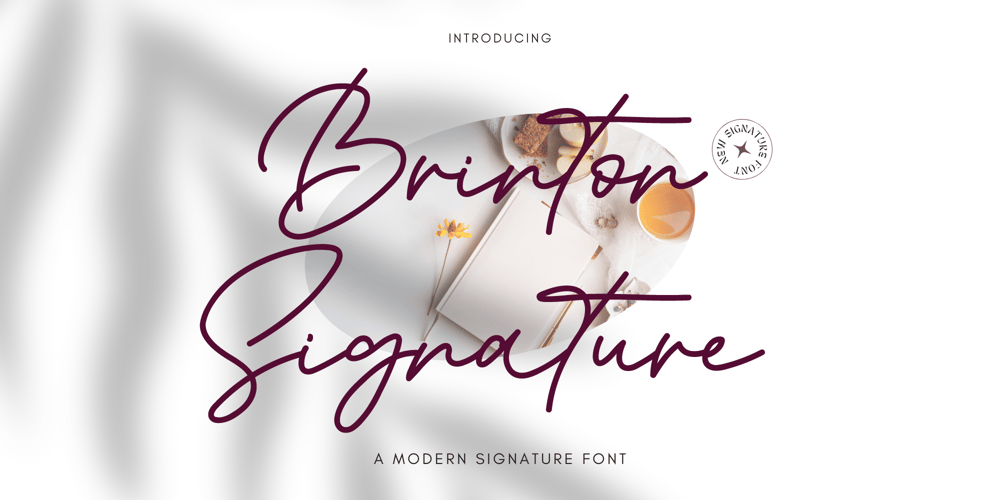
Brinton Signature
Brinton Signature font
Brinton Signature Font Family was designed by Amin Maryono and published by Aminmario Studio. Brinton Signature contains 2 styles and family package options. IntroducingBrinton Signature FontBrinton Signature is a modern signature font. Its charm makes it appear wonderfully, readable, and, ultimately, incredibly versatile. Comes in Regular and Italic styles.This font will look outstanding in any context, whether itโ€™s being used on busy backgrounds or as a standalone headline!Thank you for the purchase.Happy creating design ๐Ÿ™‚